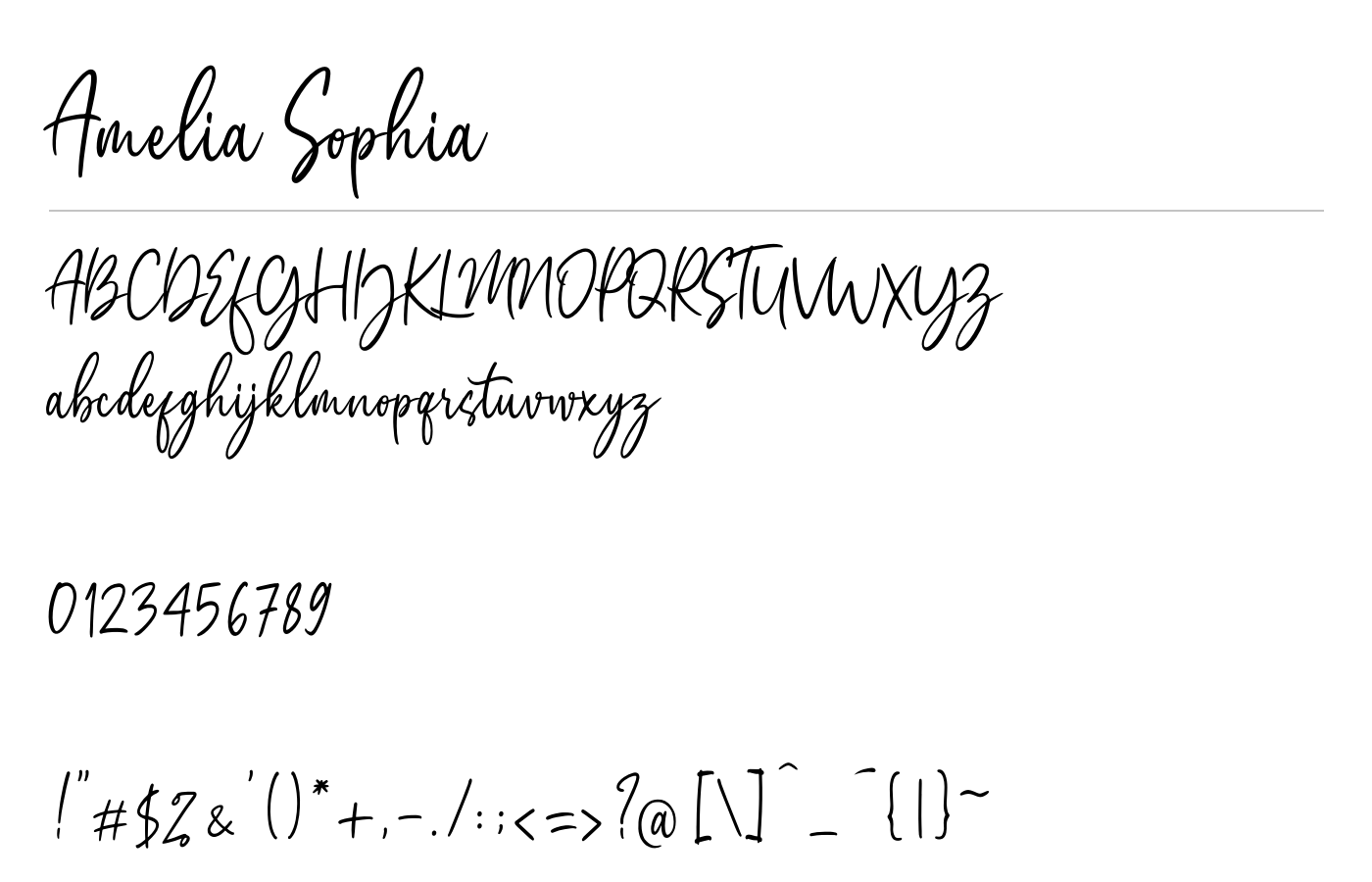
Amelia Sophia is a delicate, handwritten script font with a slim, flowing style that feels both personal and elegant. Its light weight and tall x-height give it a fresh, airy appearance, making it ideal for invitations, branding, and creative projects that seek a charming, approachable touch. This font works beautifully in designs where a warm, handcrafted feel is desired.
Amelia Sophia Font
About Amelia Sophia Font
| Font family | Amelia Sophia Font |
| Designer | Yoga Al Rendra |